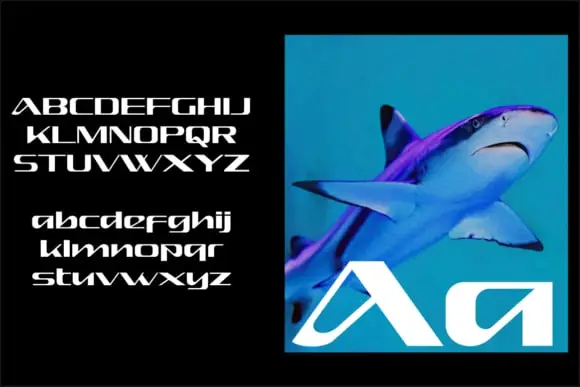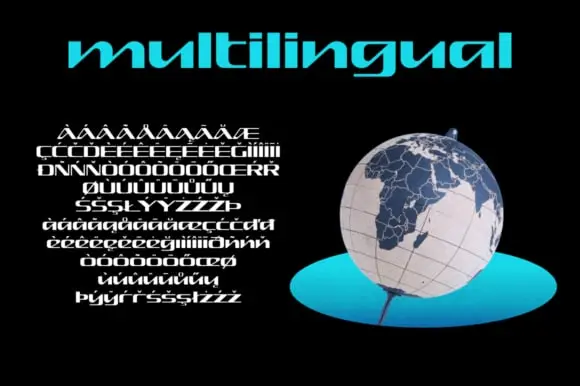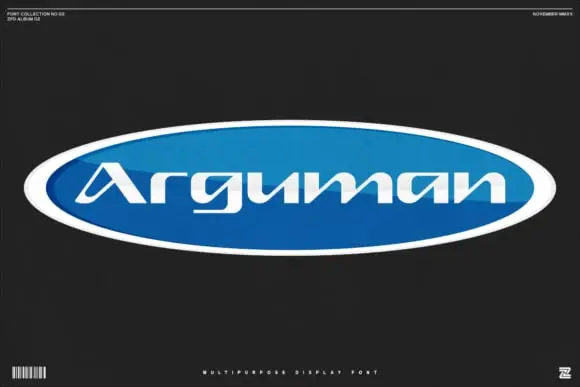
Zealab Fonts Division-Arguman Font
The Zealab Fonts Division-Arguman Font is a versatile typeface that brings a modern touch to your design projects. With its clean lines and elegant curves, this font is perfect for a variety of applications, including branding, logos, web design, and print materials.
• Styles: Available in multiple weights to suit different design needs.
• Ideal for creating eye-catching headlines and body text.
• Use in digital and print media to maintain a professional appearance.